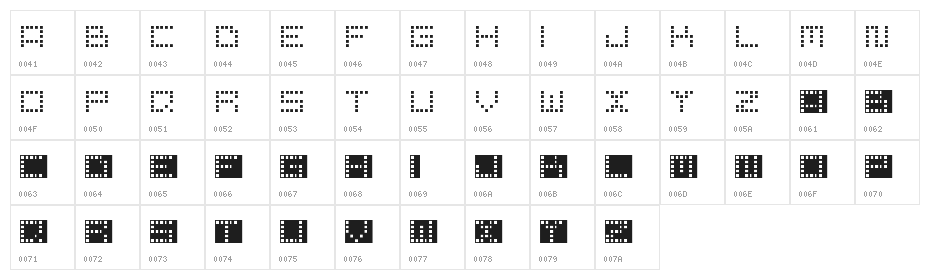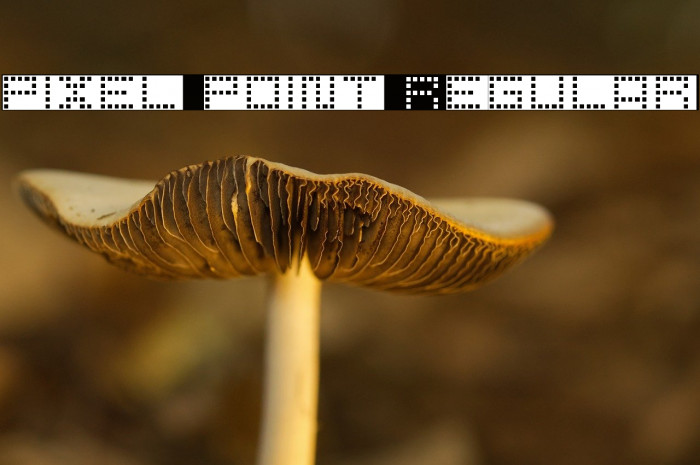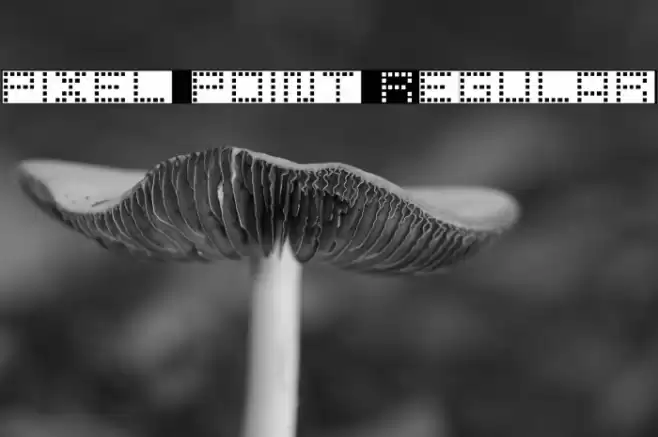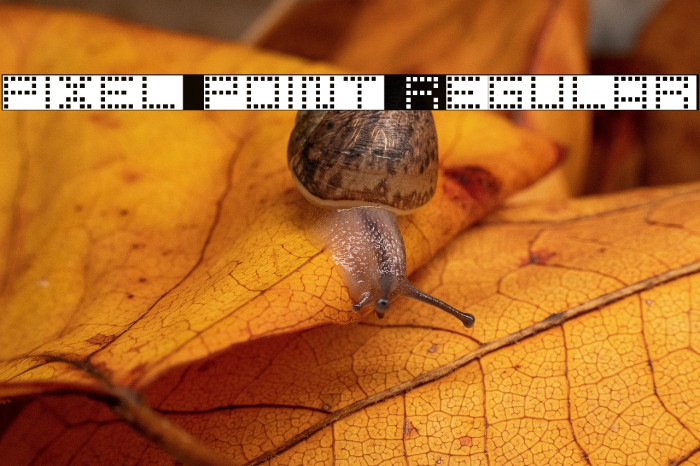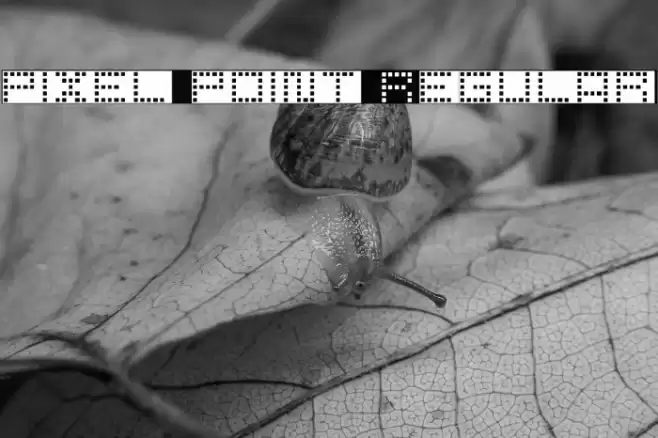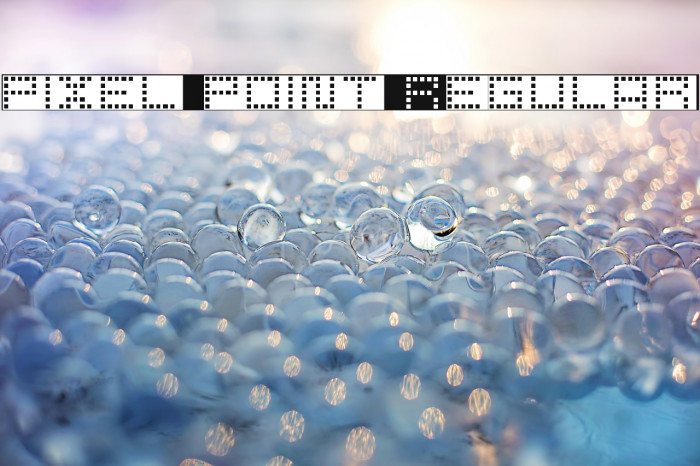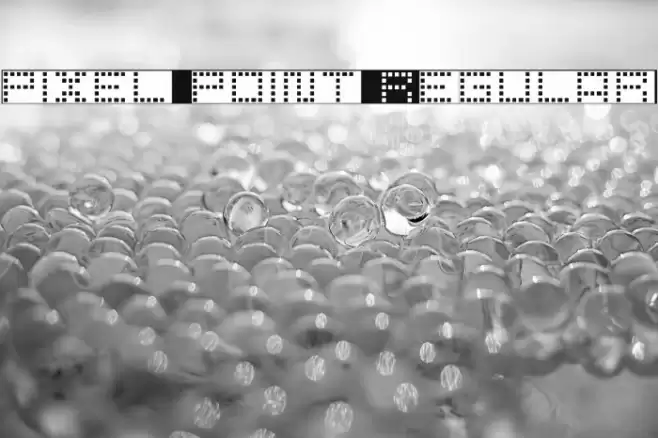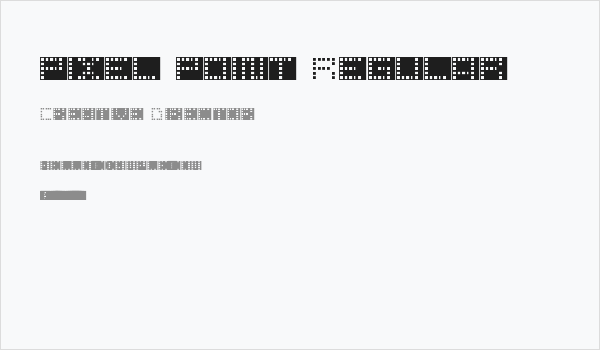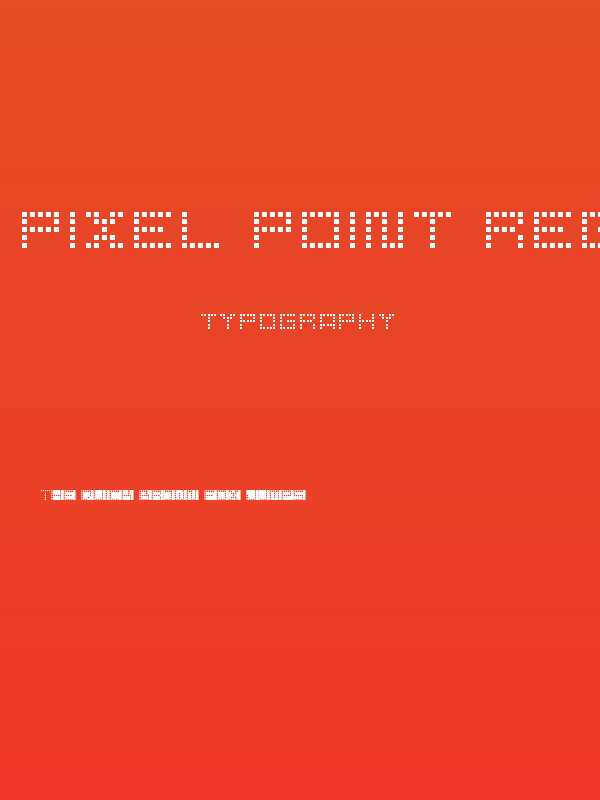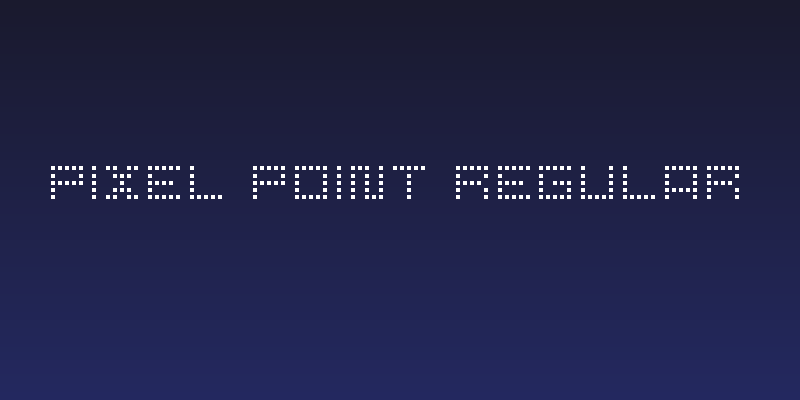
pixel point Regular Font
pixel point Regular Description
This font features a unique pixelated design, reminiscent of early digital displays and retro video games. Each character is constructed from a grid of small squares, creating a distinct, blocky appearance. The uniformity of the pixel grid gives it a monospaced feel, although it maintains a playful and decorative style. The uppercase and lowercase letters are clearly distinguishable, with consistent spacing and alignment. The numbers and special characters follow the same pixelated pattern, ensuring a cohesive look across all glyphs. This font is ideal for projects that aim to evoke nostalgia or a digital aesthetic.
Overall StyleRetro, Digital
Use CaseLogos, Headlines, Posters, Video game graphics
Proposed ProjectsPerfect for retro-themed designs, video game graphics, digital art projects, and any creative work that requires a nostalgic or tech-inspired look.